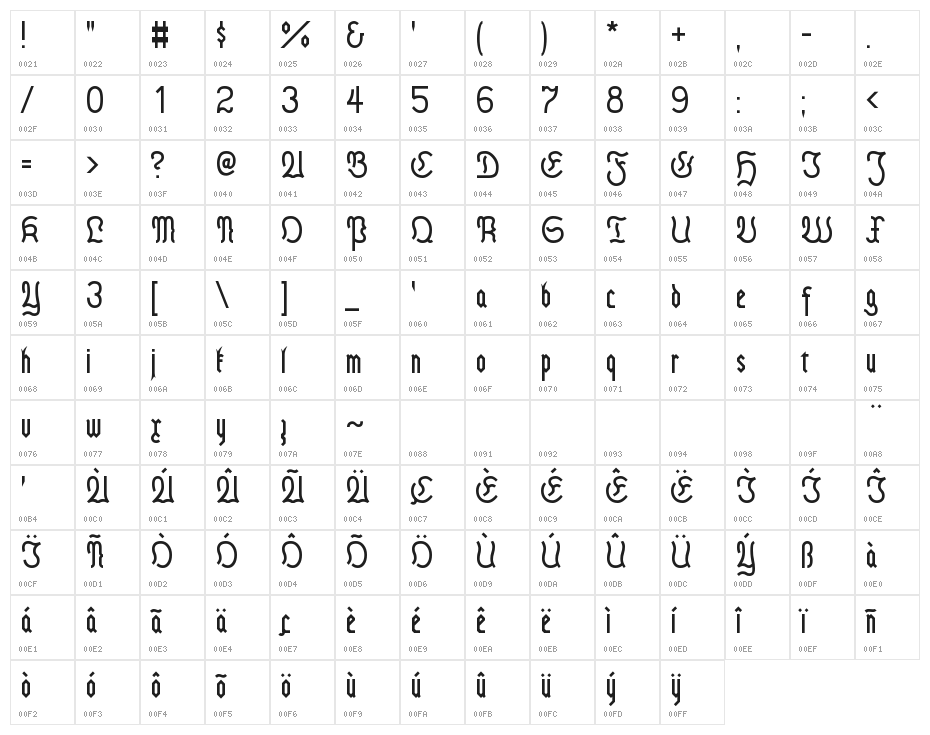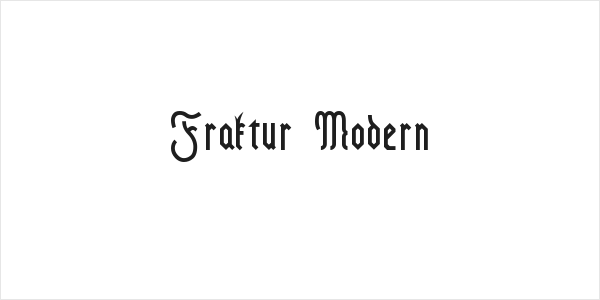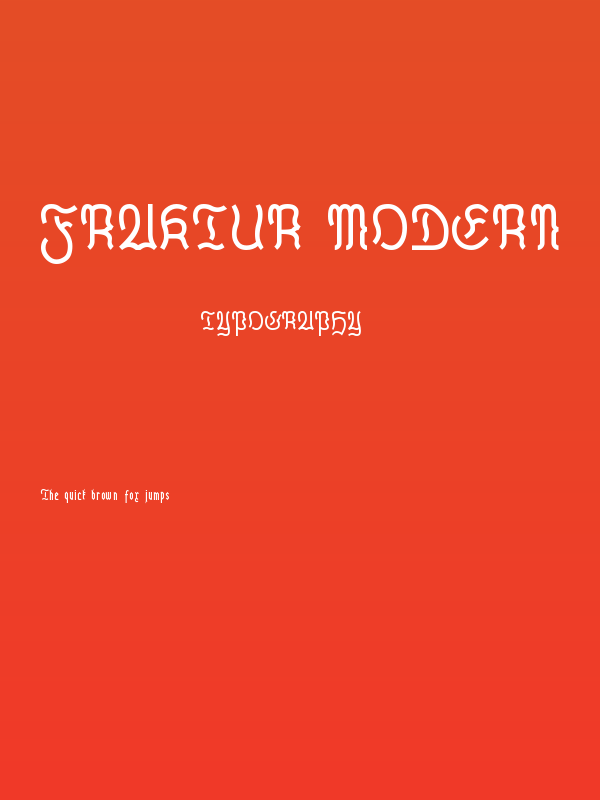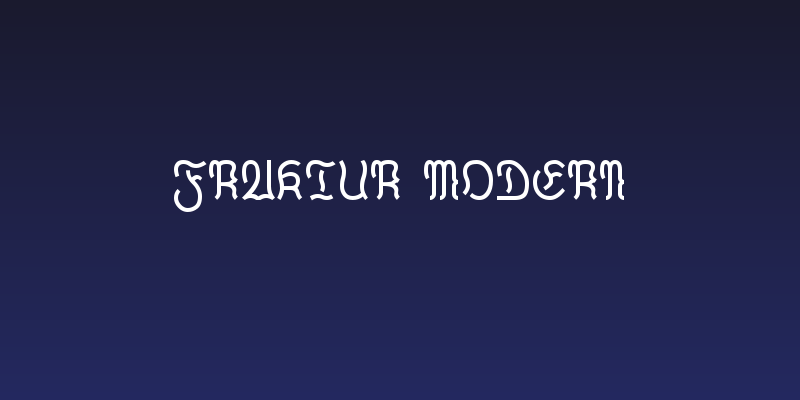
Fraktur Modern Font
Fraktur Modern Description
This font is a modern take on the traditional Fraktur style, characterized by its intricate and ornate letterforms. The uppercase letters feature bold, angular strokes with sharp edges and decorative elements, giving them a distinct Gothic appearance. The lowercase letters maintain the same decorative style but are more streamlined, allowing for better readability. The numerals are consistent with the overall design, featuring unique curves and angles that complement the letterforms. Special characters are also included, each designed with the same attention to detail and stylistic flair. This font combines historical elegance with a contemporary twist, making it suitable for a variety of creative applications.
| Proposed Projects | Ideal for branding, posters, book covers, and any project requiring a touch of historical elegance with a modern twist. |